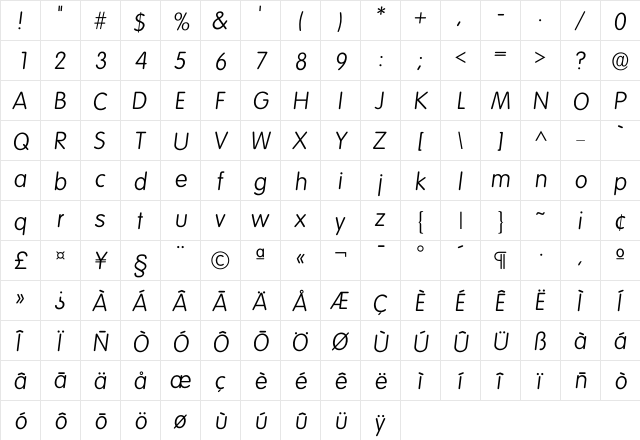
Ivolkswagen Light
Design Context for Ivolkswagen Typeface
Ivolkswagen offers clean, dependable letterforms without strong stylistic allegiance, making it a practical choice for designers who need flexibility. The delicate stroke weight brings airiness and refinement to layouts.
Pro Tip: Pair Ivolkswagen with a font of contrasting weight or personality to build a more expressive typographic hierarchy.